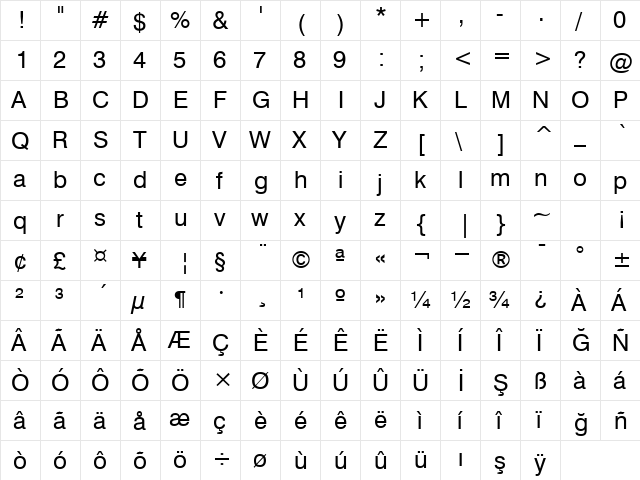
00791 Regular
Design Context for 00791 Typeface
00791 is a composed and adaptable typeface that performs quietly and consistently across a wide range of design contexts.